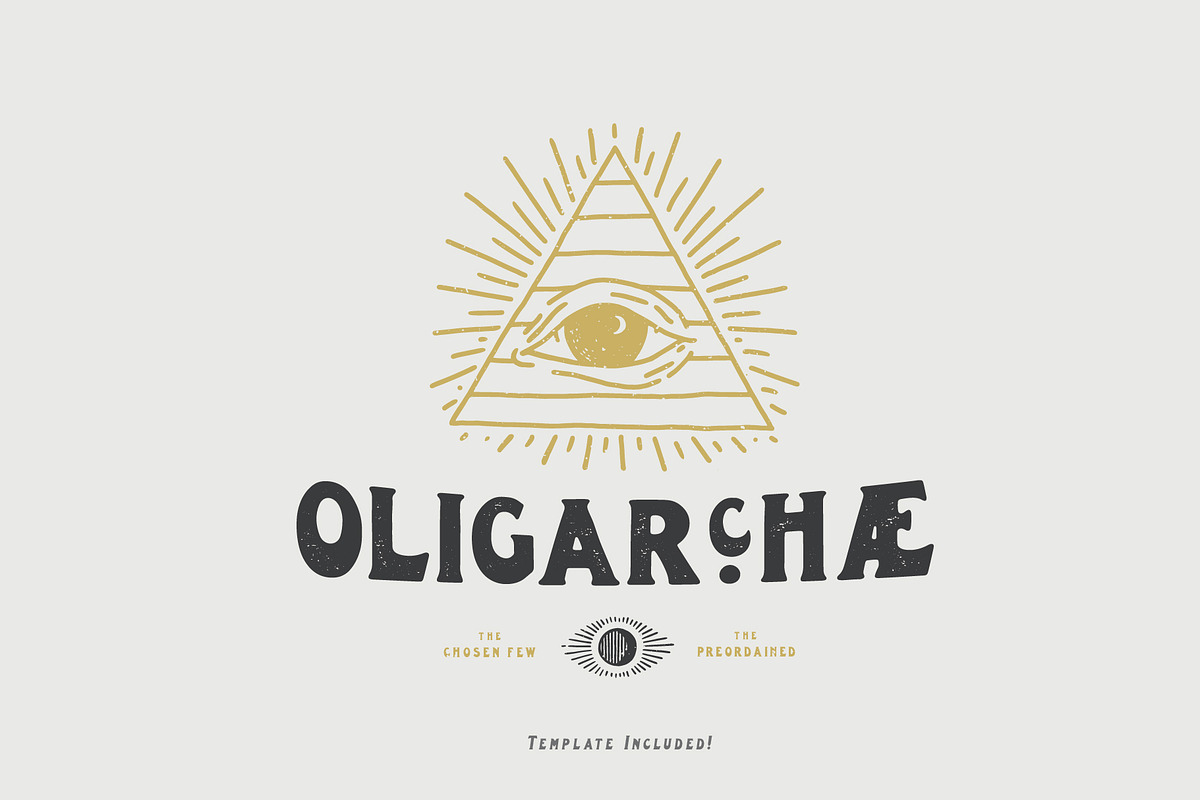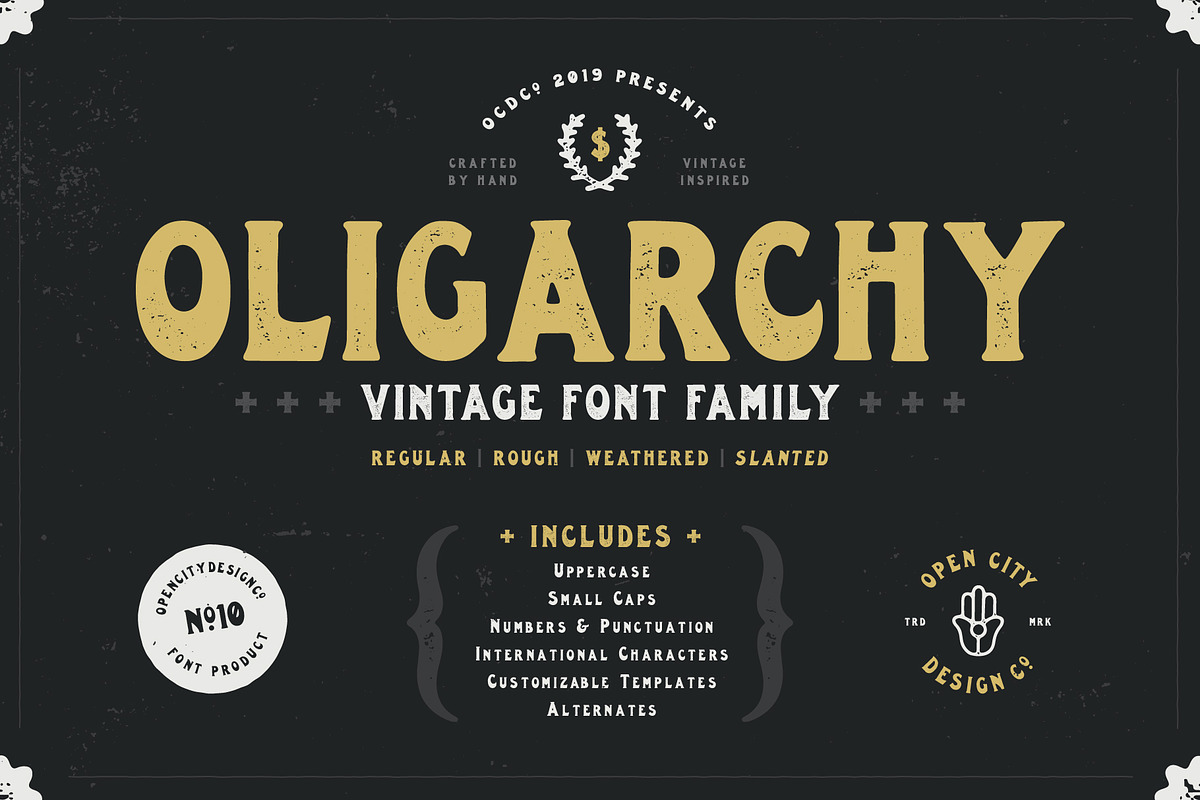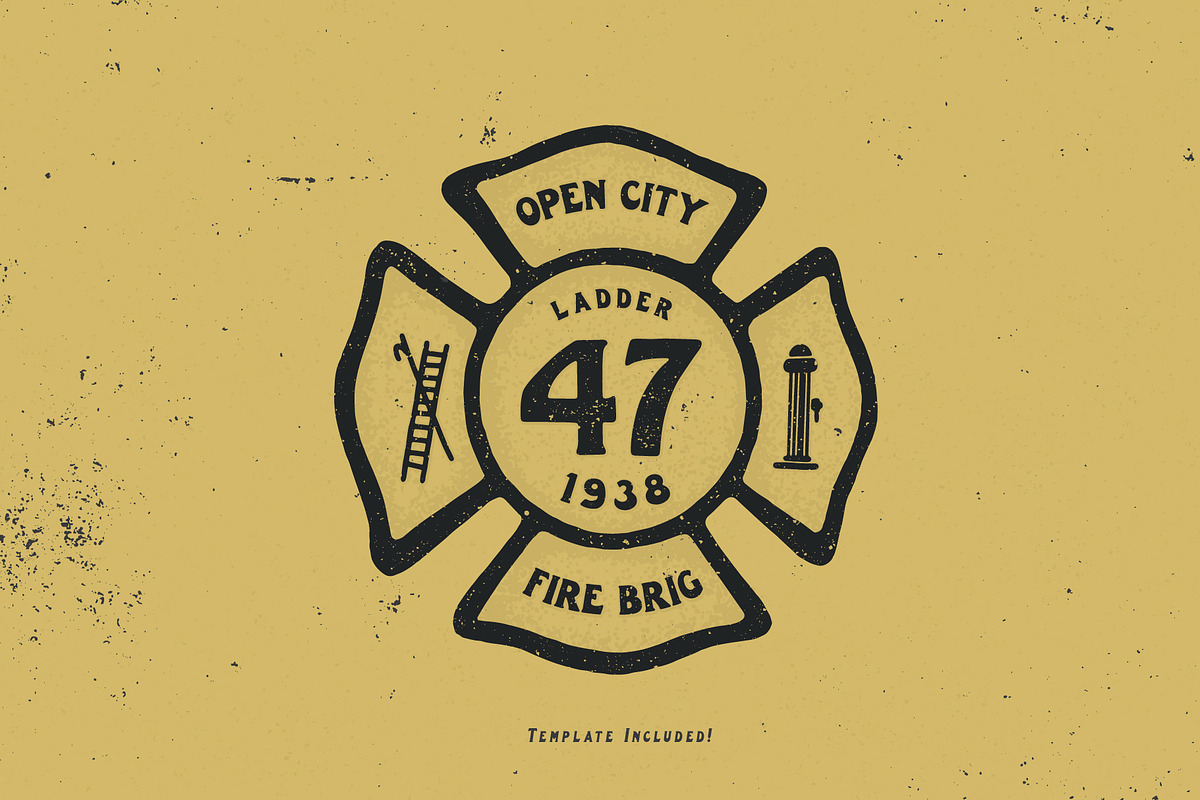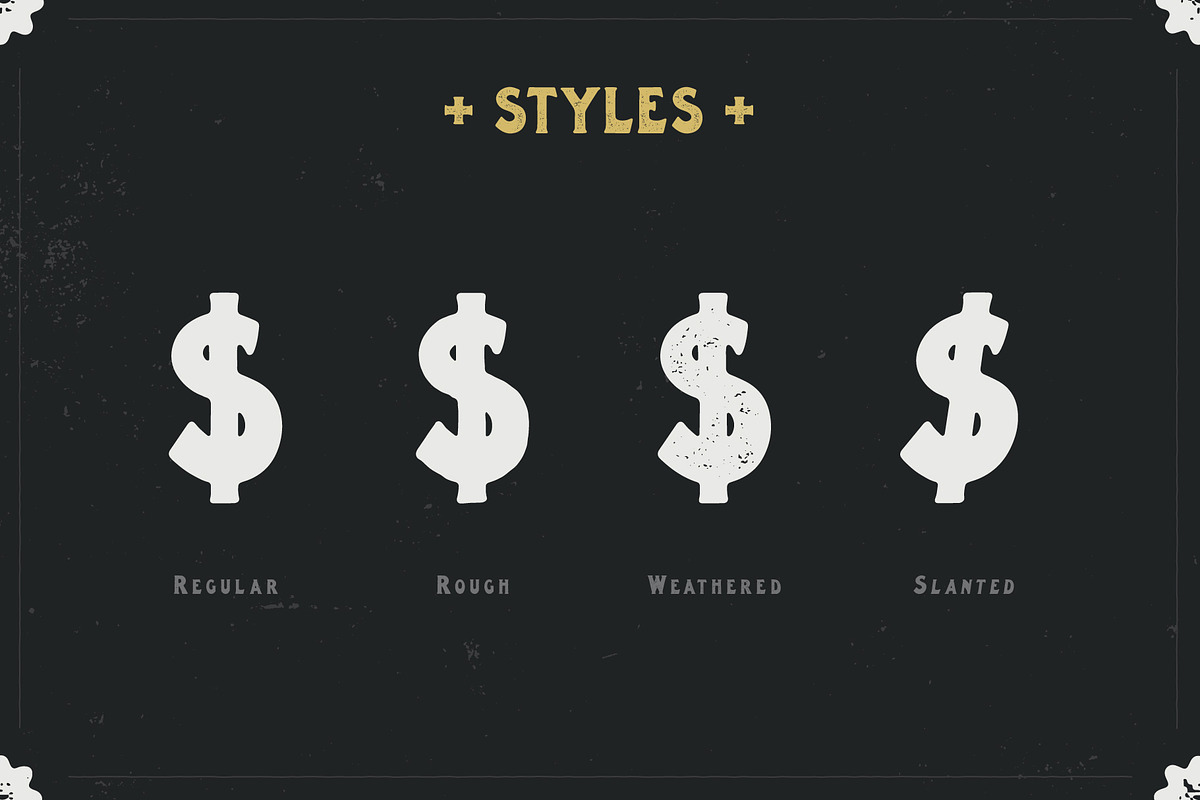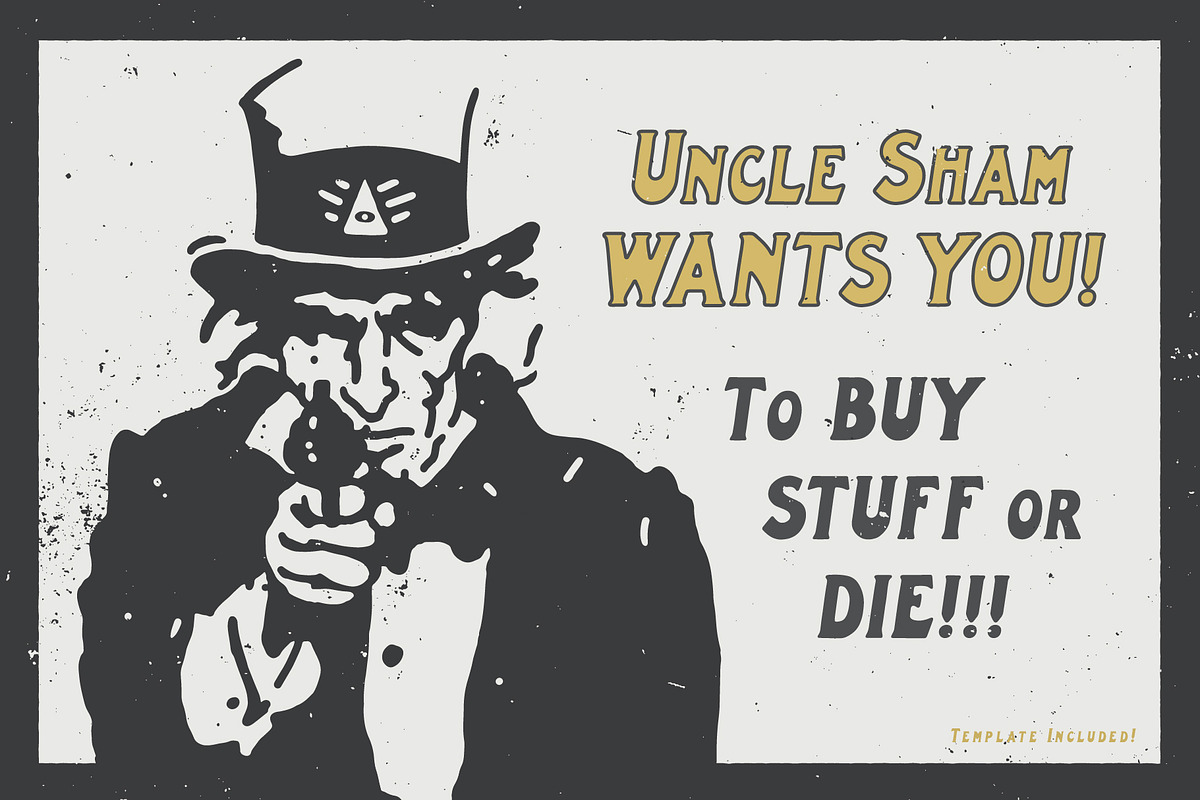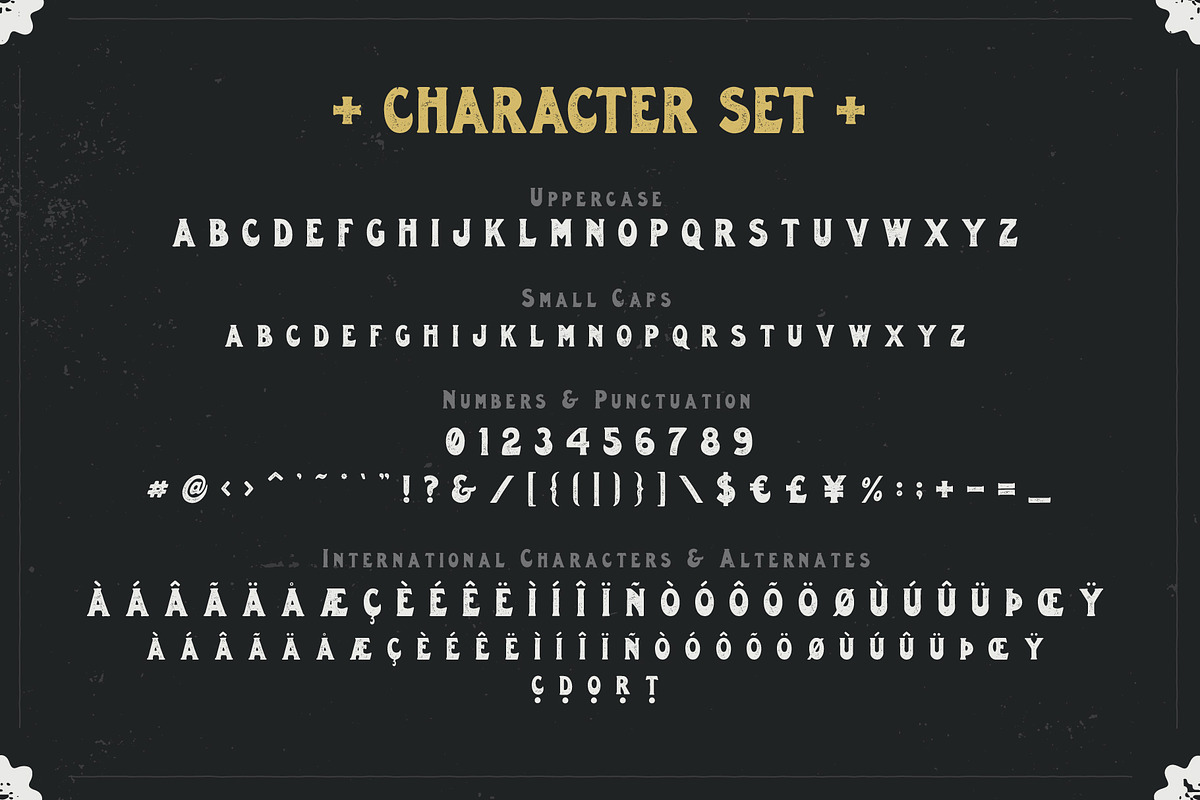
Oligarchy - Vintage Font Family
+++ OCDCO 2019 Presents: Oligarchy - Vintage Font Family +++
This stylish glyphic serif style typeface was inspired by WWII era poster typography. It is carefully handcrafted and comes in 4 styles that complement each other nicely. In addition to the font files, you get three vector based templates featuring a variety of textures and carefully hand drawn graphic assets. This is a typeface that will work for you in most contexts and will give your work that organic, hand drawn feel.